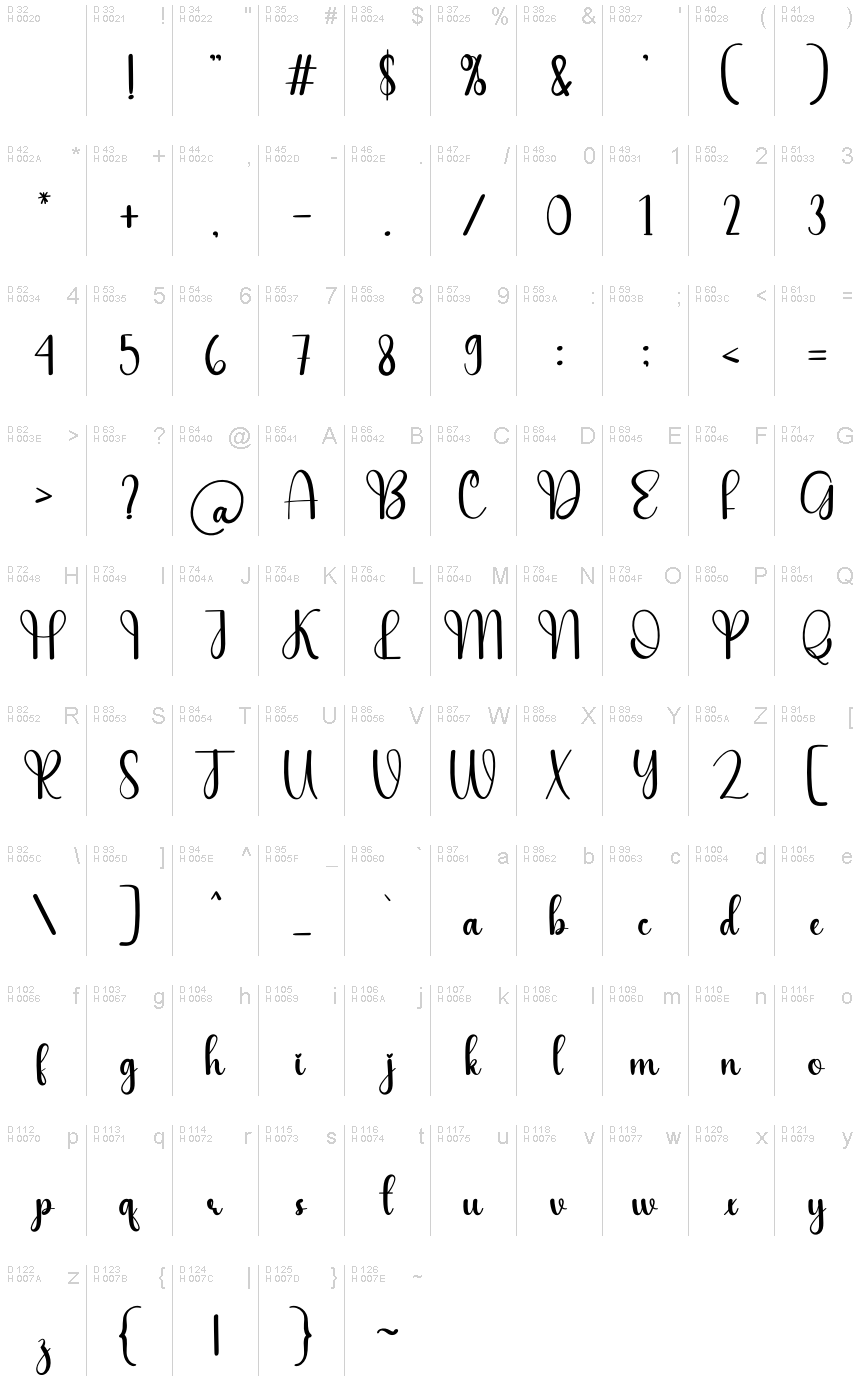
Quickly
Quickly, designed by Scratchones, is a semi-light and semi-condensed calligraphy font that embodies charm and fluidity. Its elegant strokes and slightly condensed letterforms exude a stylish flair, making it an excellent choice for projects requiring a personal touch with an air of sophistication. The aesthetic appeal of Quickly lies in its harmonious balance of casual grace and structured formality.
Whether gracing wedding invitations, branding materials, or creative graphics, Quickly's versatile nature ensures it stands out. It captures the essence of handcrafted artistry while maintaining readability—perfect for designers aiming to inject a sense of intimacy into their work without sacrificing clarity. Quickly is more than just typography; it's a stylistic bridge between traditional calligraphy and contemporary design needs.